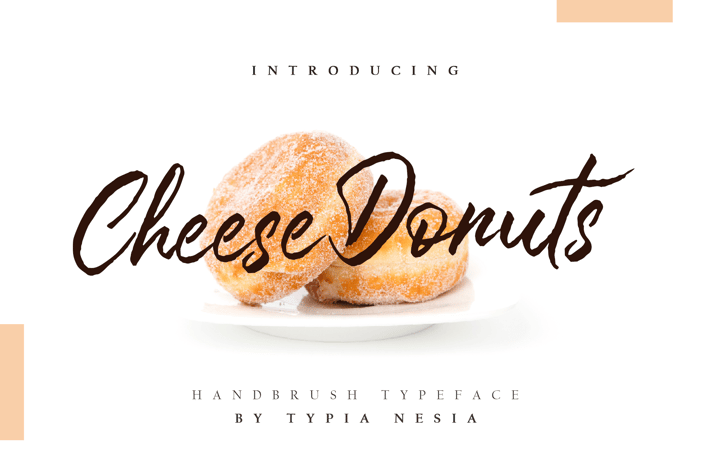
Cheese Donuts - Brush Font
Cheese Donuts is a marker brushed script font
It suitable for logo, branding, t-shirt, poster, food packaging, book cover, hipster design, cards, and any brush lettering needs and more.